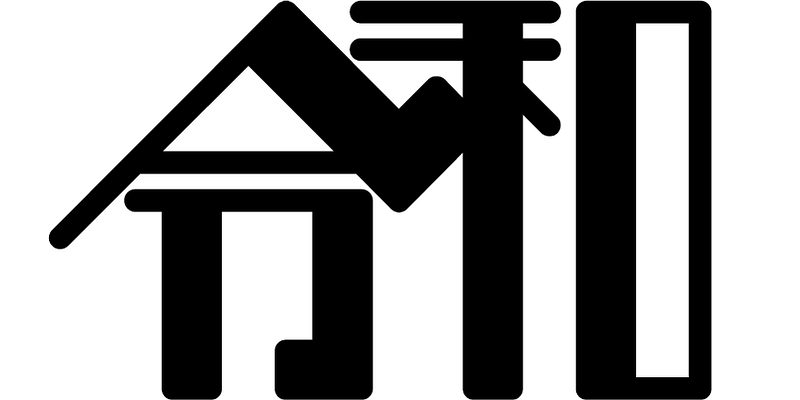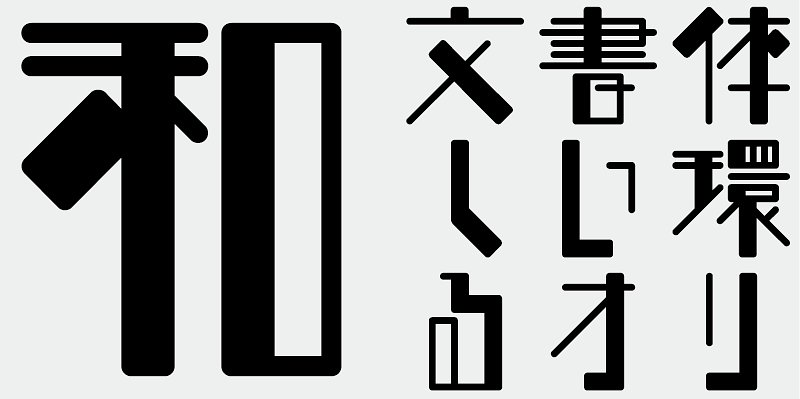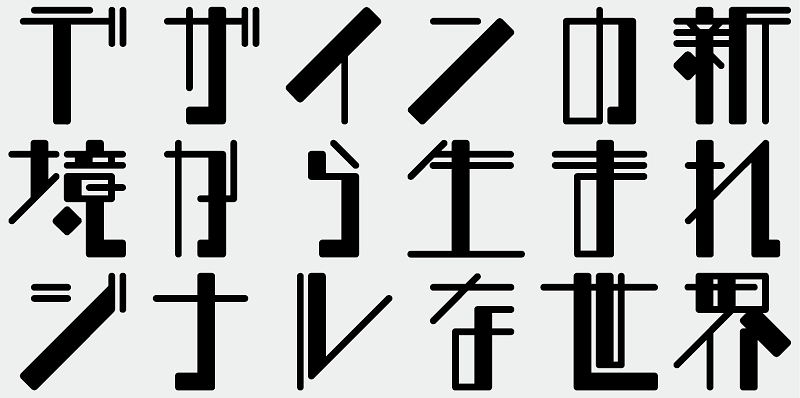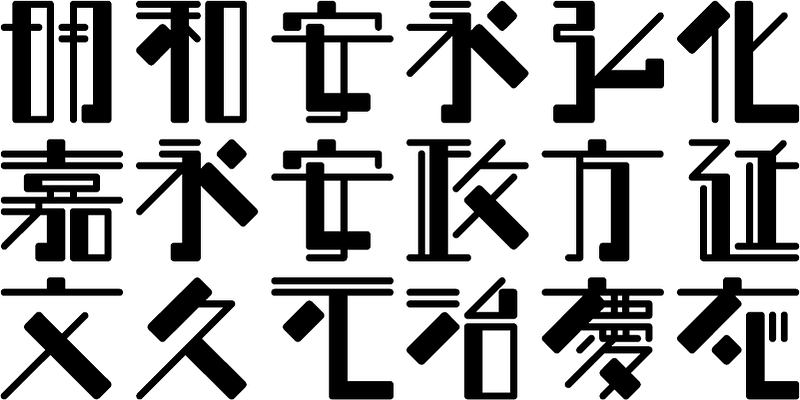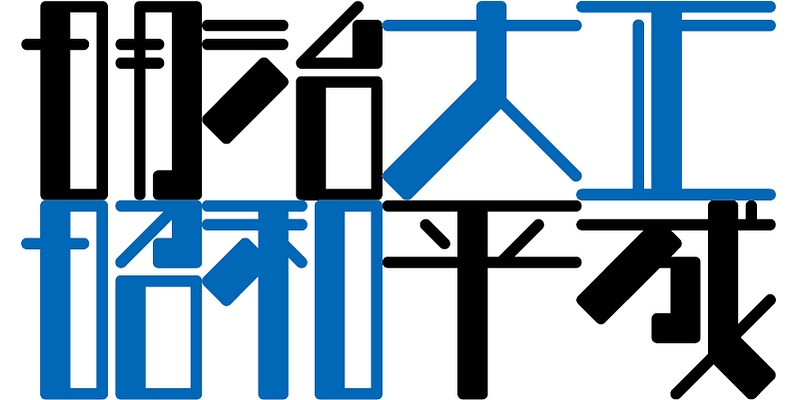
Each glyph of TA-Hougan is designed within a 10 x 10 grid centered in the EM body whose square is divided into twelve equal sections, like graph paper. Only straight horizontal, vertical, and diagonal lines are used. The overall typographic effect is prioritized, though a few glyphs may look unusual. As strokes are aligned on a grid, many strokes share the same positions and angles, and the slopes are well aligned, because the angle is limited to 45-degrees. With only a few characters, you can easily create a logotype effect.
The reason only horizontal, vertical, and diagonal lines are used is to not only provide better alignment of strokes but also avoid undesirable darkening at corners where strokes cross each other, especially at sharper angles. By limiting the possible angles at crossings to 45 or 90 degrees, optical illusions are also minimized. Although this approach leads to some extreme glyph shapes, it provides interesting visual effects.
The Hougan family has linear gothic (K) and rounded gothic (M) styles, each of which includes the following four weights 250, 375, 500, 625 (the larger the number the heavier the weight). M500 is one of the rounded style gothic fonts.
This font contains 2,286 characters from the Joyo Kanji List and Jinmei-yo Kanji characters, as well as additional 206 characters including kana characters, punctuation marks and Latin characters, etc.